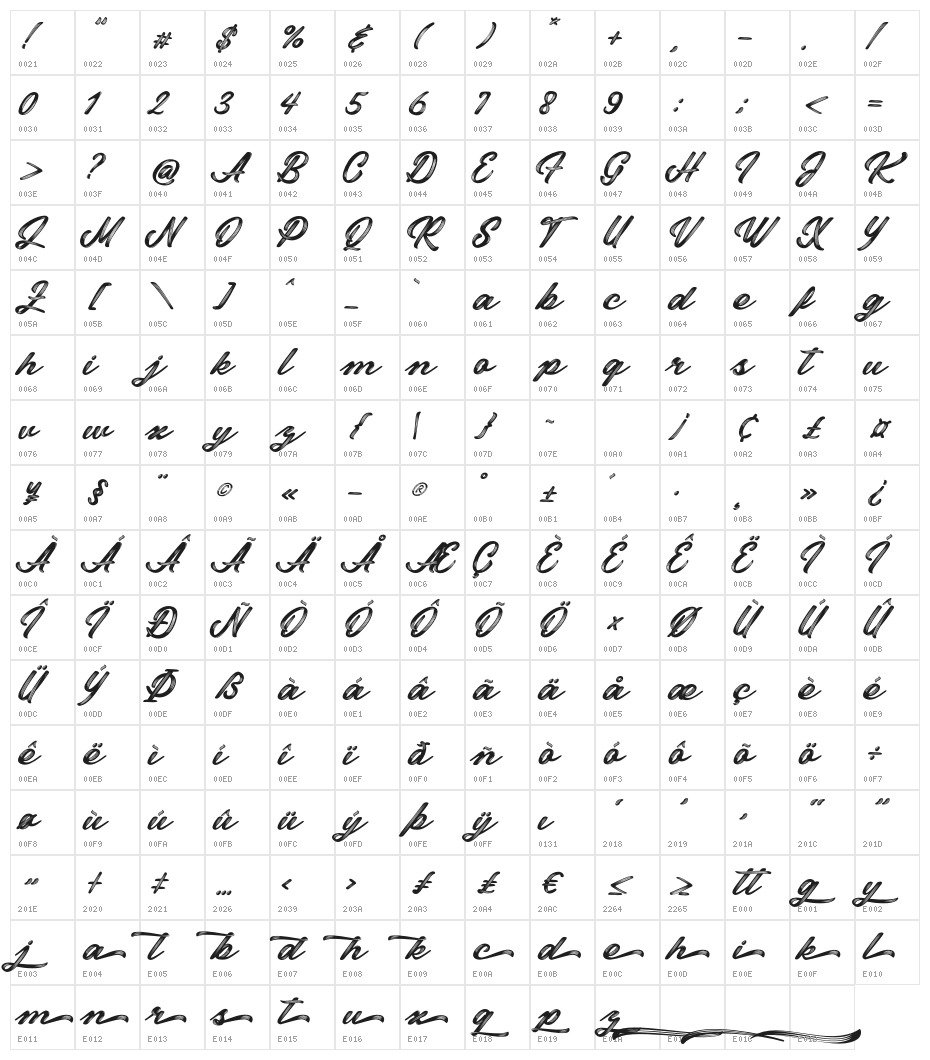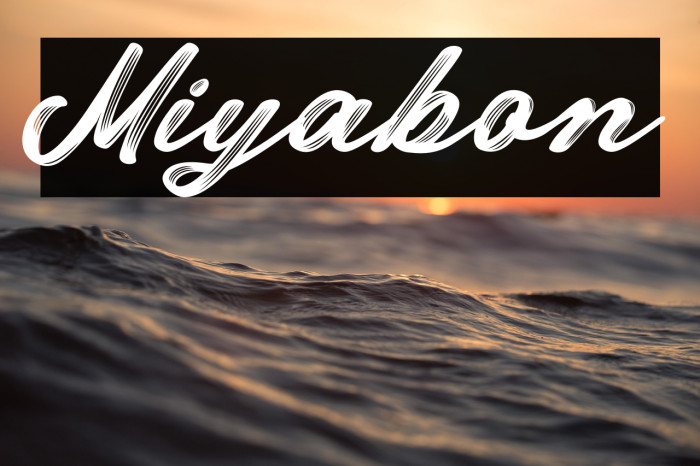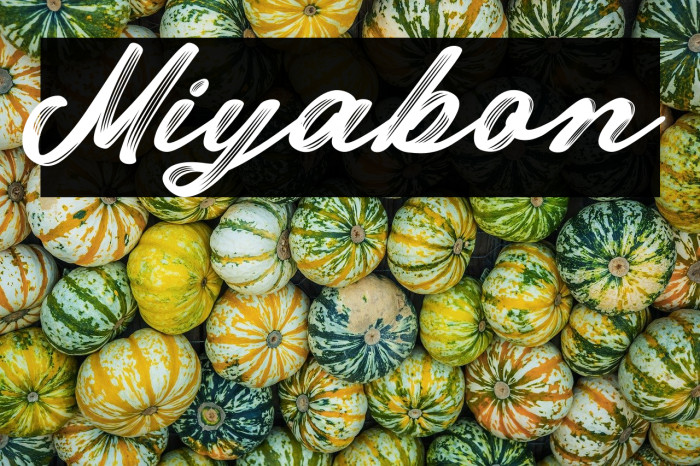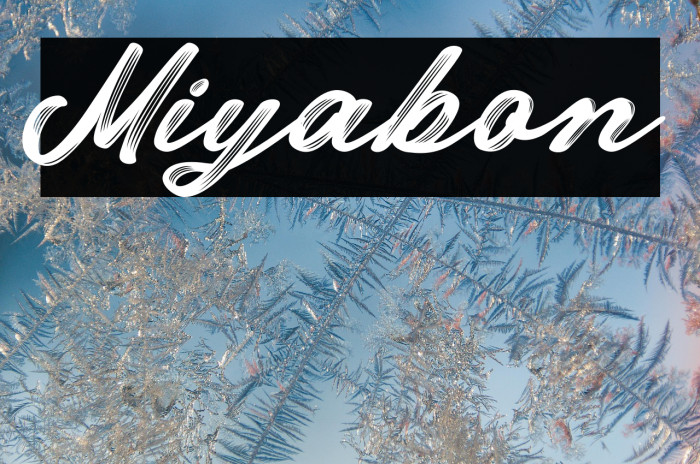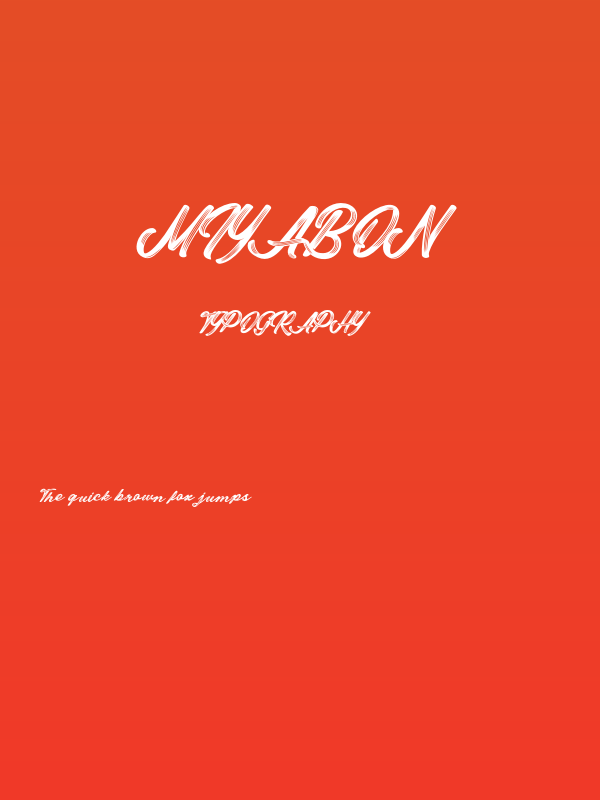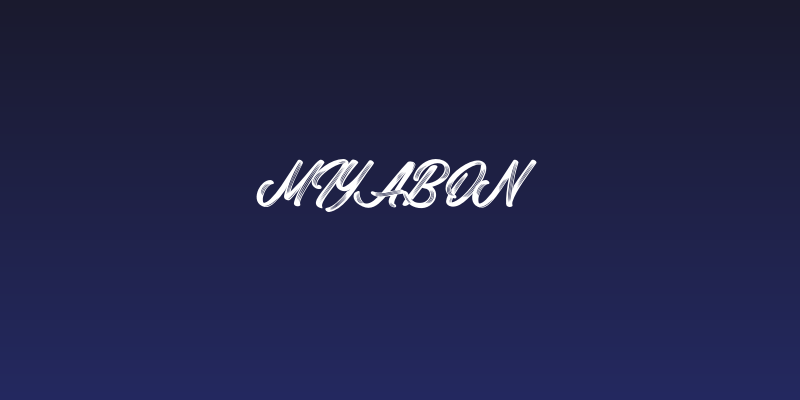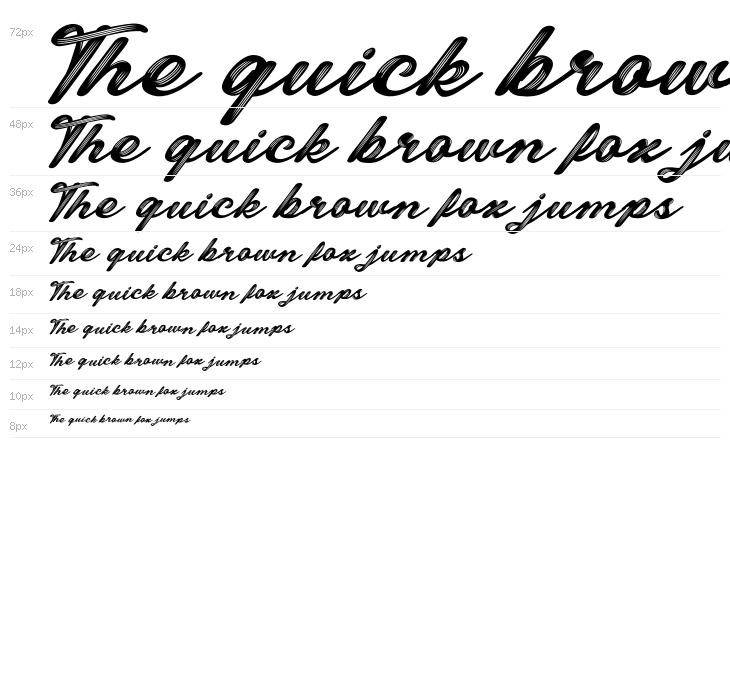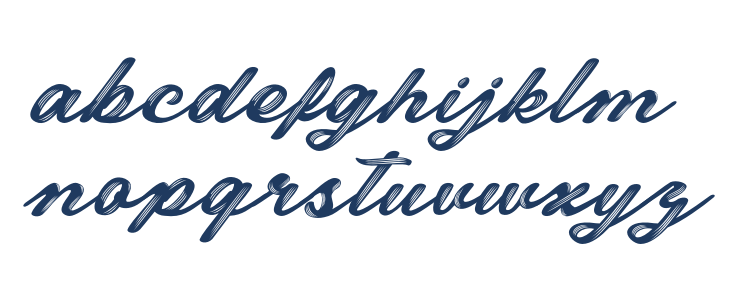
Miyabon Font
Miyabon Description
This font features a dynamic and flowing script style, characterized by its elegant and cursive letterforms. The strokes are bold and expressive, with a consistent slant that adds a sense of movement and grace. Each character is intricately designed with smooth curves and a slight flourish, giving it a sophisticated and artistic appearance. The uppercase letters are particularly ornate, while the lowercase letters maintain a harmonious balance. The numerals and special characters are crafted to match the overall aesthetic, ensuring a cohesive look across all elements.